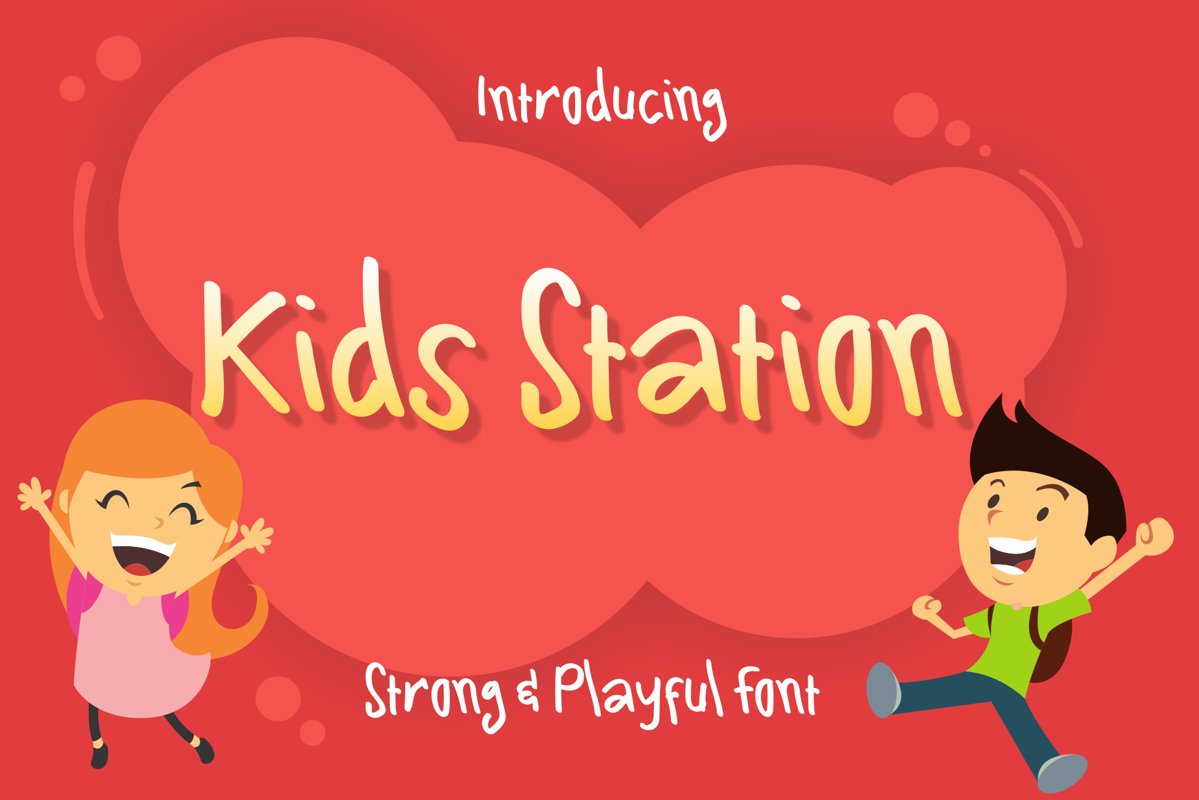
Kids Station Cute Font
Kids Station
Kidz Station is a natural handwritten font that is created with full appreciation so that it can be in accordance with the world of children, so as to give an original impression on each character.
Kids Station Cute Font